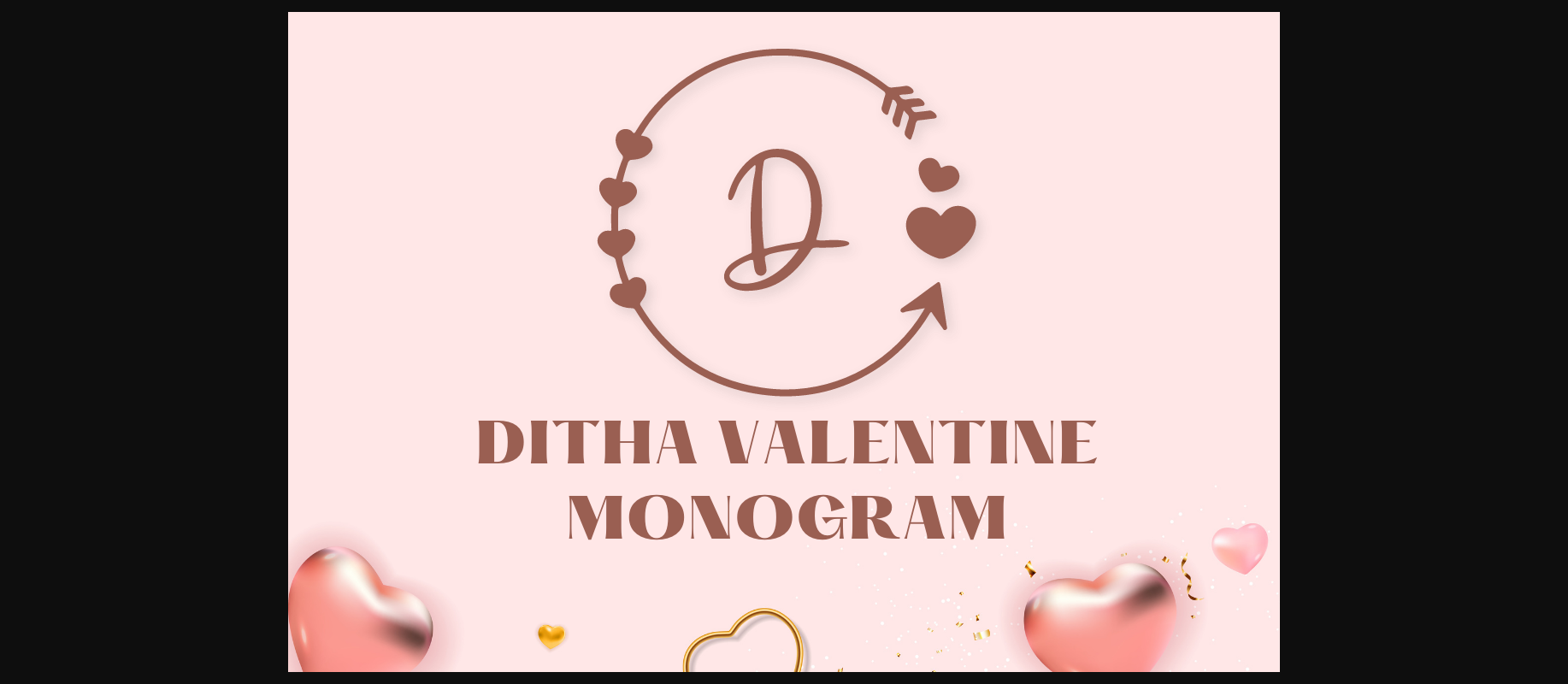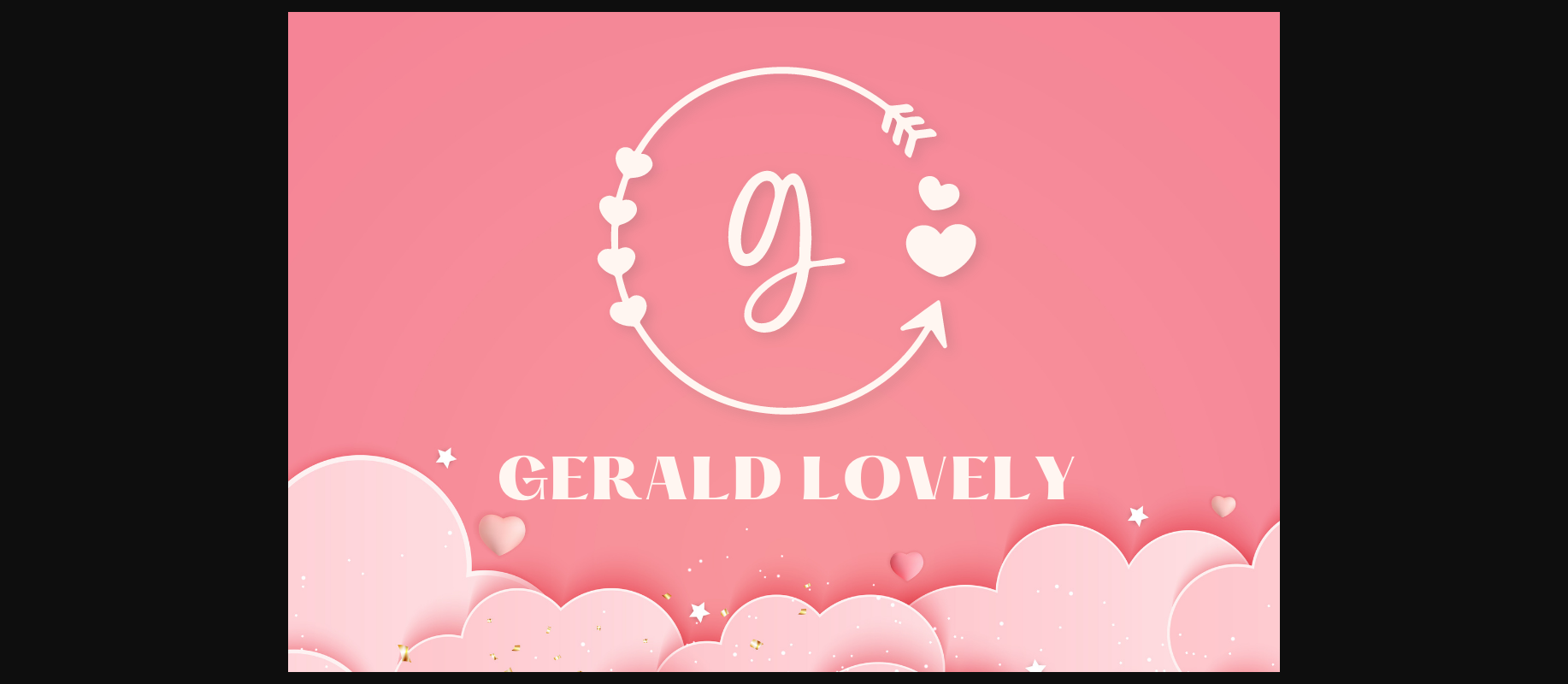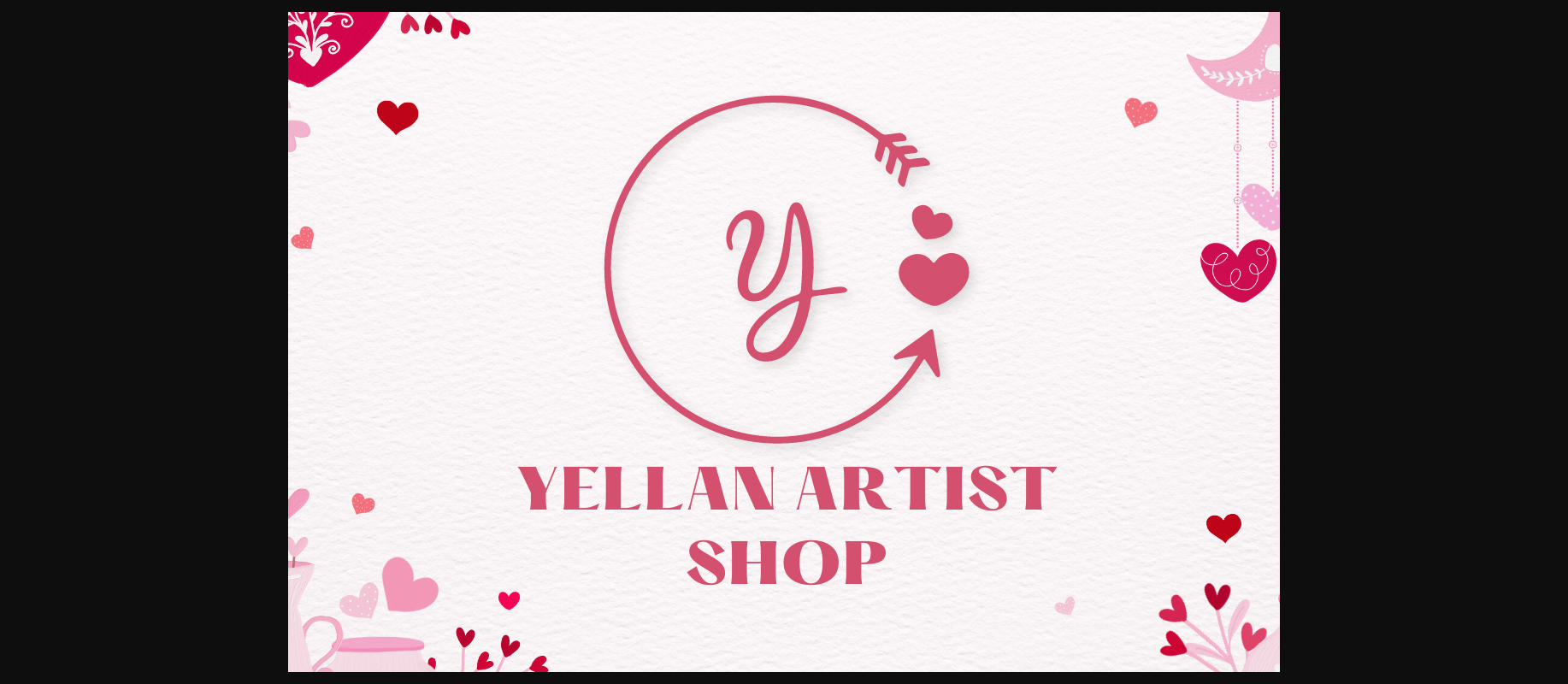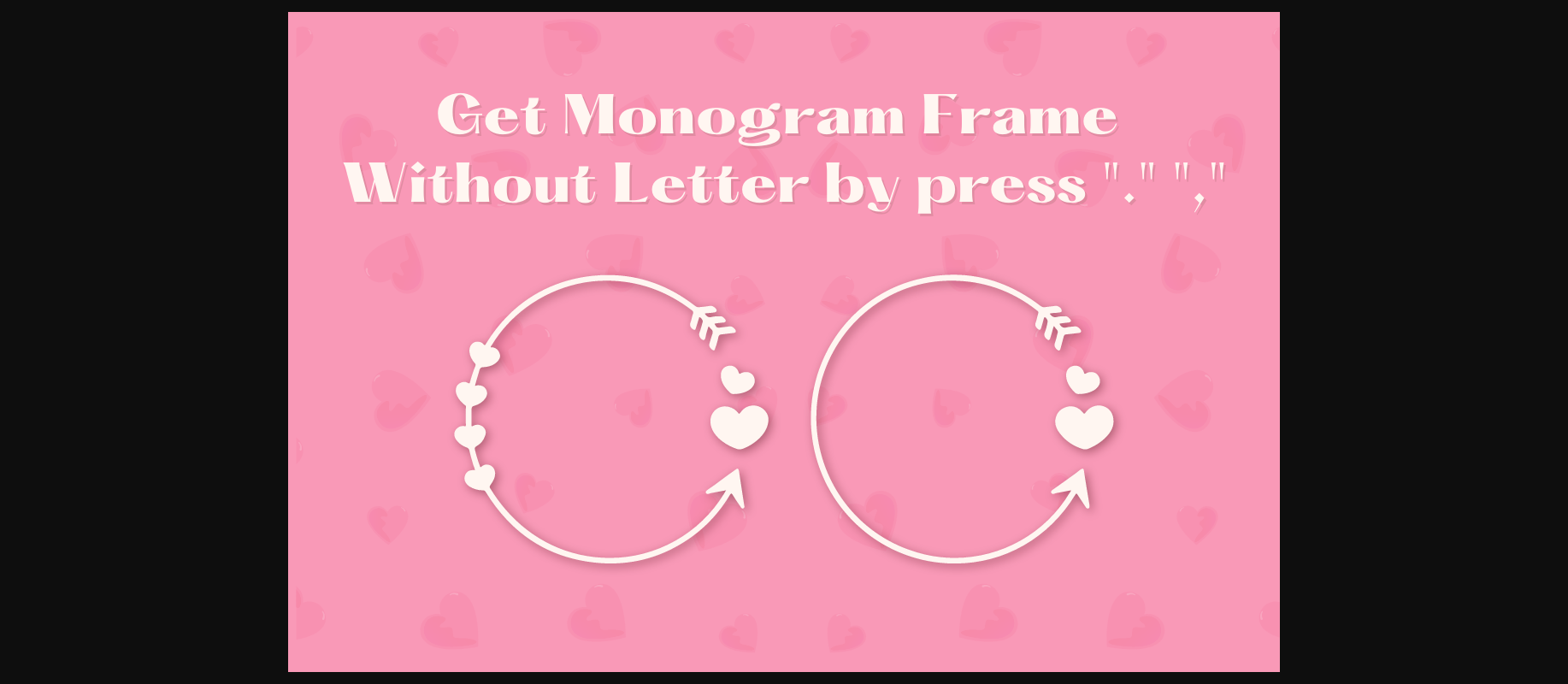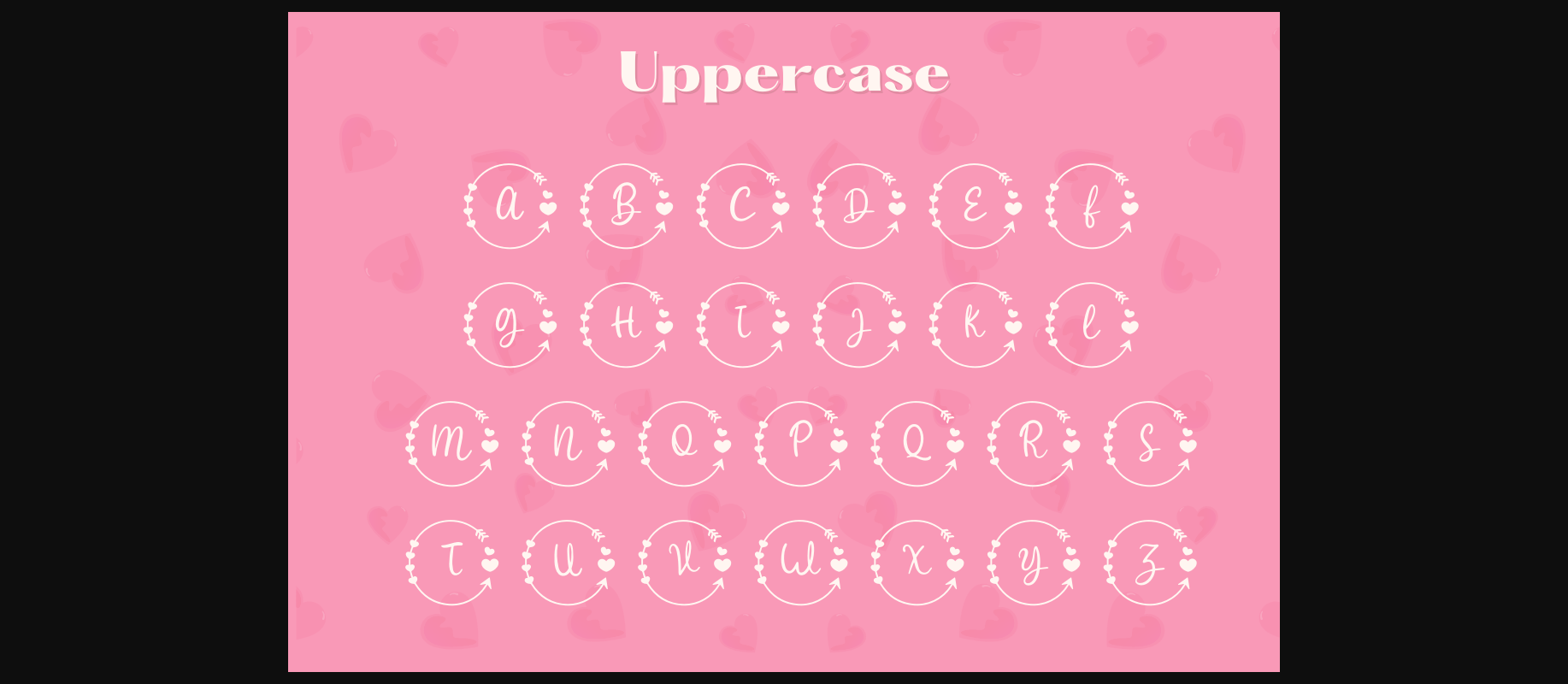
About Ditha Valentine Monogram Font
Ditha Valentine Monogram is a cute decorative arrow font. Fall in love with its lovely characters, and use them for your special occasions, business designs, logos, branding, social media posts, and wedding cards.
Comes in 2 styles.
Just simply change between uppercase and lowercase to see the different styles!